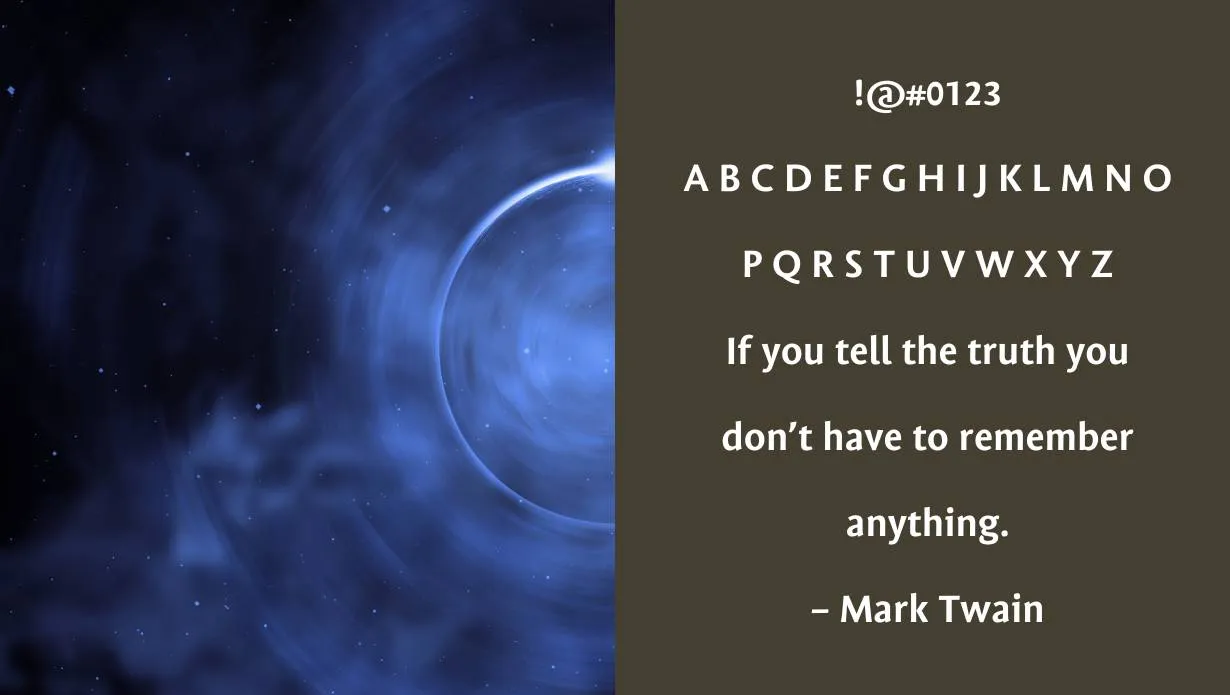
Mantika Sans Font is an old sans-serif typeface that was commonly used for branding logos. The font was created in the early by a well-known font designer named Jrgen Weltin.
This Font is characterized by its simple, geometric shapes and its clean, linear design. The font is also notable for its straight and charming texture, which gives it a modern, minimalist look.
The font has also been used in a number of international projects and it is widely considered to be one of the most influential typefaces of the 20th century and has been used by many major brands.
Mantika Sans Font Family
You can also use the verdana font which is closest to this font family. If you’re looking for a modern, minimalist sans-serif font, this font is a great choice.
| Name | Mantika Sans Font |
| Designer | Jrgen Weltin |
| Style | Sans-serif |